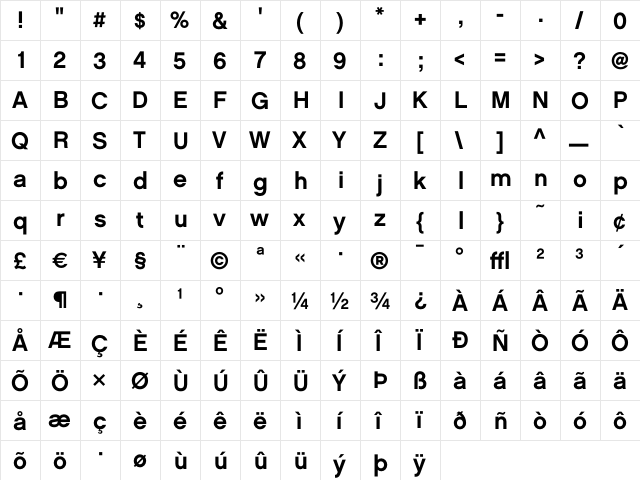
Chalet NewYorkNineteenSixty Font Preview
Chalet NewYorkNineteenSixty
Chalet NewYorkNineteenSixty Font Details
Design Context for Chalet Typeface
Chalet is a composed and adaptable typeface that performs quietly and consistently across a wide range of design contexts.
Pro Tip: Pair Chalet with a font of contrasting weight or personality to build a more expressive typographic hierarchy.